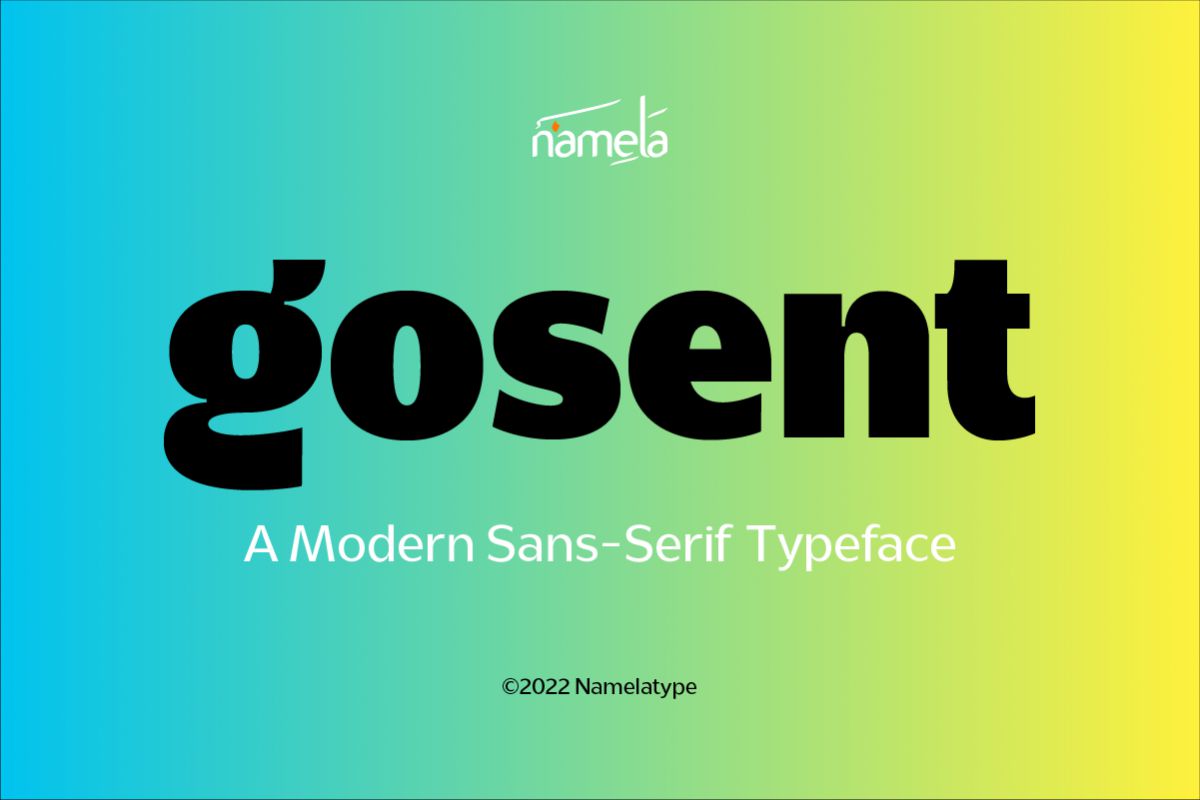
Gosent Medium Oblique
Gosent Font - A Modern Sans-Serif Typeface for Logo & Broadcast The best sans serif typefaces don’t just look good—they perform. Gosent from Namelatype is built with that philosophy at its core: a modern, highly functional typeface designed for clarity, flexibility, and long-term usability across design systems. From corporate identity to digital publishing and bold display work, Gosent Modern Sans-Serif Font delivers both technical precision and subtle visual distinction.